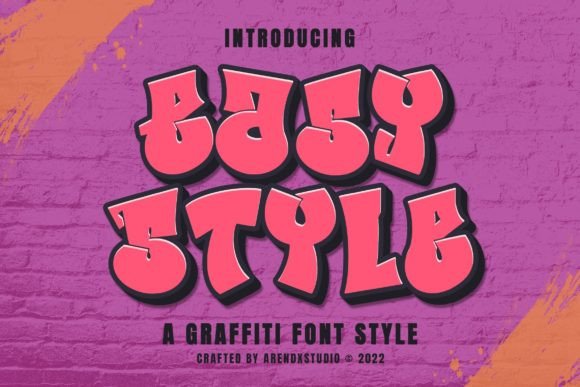
Journey into the realm of artistic expression with Easy Style Font, a captivating display font that echoes the vibrant spirit of street art. This font is not just a collection of letters; it's a gateway to unleashing your creativity and leaving an indelible mark on the world of design.
With Easy Style Font, you hold the power to transform ordinary designs into masterpieces. Picture your logos radiating with an urban edge, your product packaging bursting with personality, your wedding invitations adorned with a touch of artistic flair. Let your branding soar to new heights, headlines that command attention, labels that intrigue, signatures that exude individuality, book covers that tell a story before the first page is turned, posters that ignite imaginations, and quotes that resonate with raw emotion.
Easy Style Font is not merely a font; it's an experience. Its graffiti-inspired design invites you to break free from the mundane and embrace the audacity of self-expression. Visualize your designs transcending the ordinary, captivating audiences with their boldness and originality. This font is your passport to a world where creativity reigns supreme, where your designs become a reflection of your unique vision.
But Easy Style Font is more than just aesthetically pleasing; it's also incredibly versatile. Its adaptability knows no bounds, seamlessly blending with a multitude of design projects. Whether you're crafting Christmas signs that radiate holiday cheer or seeking the perfect font to adorn your social media posts, Easy Style Font rises to the occasion. Its versatility is a testament to its ability to elevate any project, regardless of its nature or complexity.
One of the most remarkable features of Easy Style Font is its PUA encoding. This ingenious feature grants you effortless access to the font's complete repertoire of glyphs and swashes. Unleash your creativity without limitations, incorporating intricate details and flourishes that add depth and dimension to your designs. The possibilities are endless, empowering you to create truly exceptional works of art.
With Easy Style Font, you're not just downloading a font; you're embarking on a journey of artistic exploration. Embrace the freedom of street art, let your imagination soar, and watch as your designs transform into captivating masterpieces. Join the ranks of those who dare to be different, those who embrace the unconventional, and those who leave an indelible mark on the world of design.